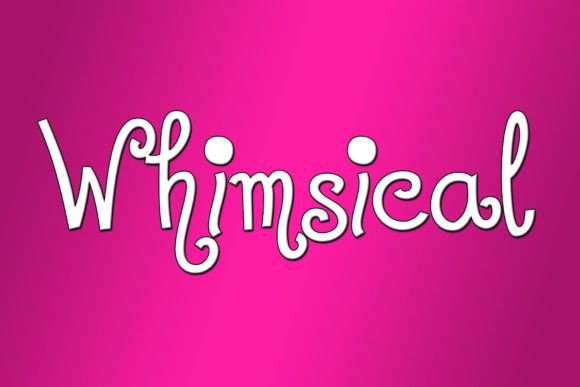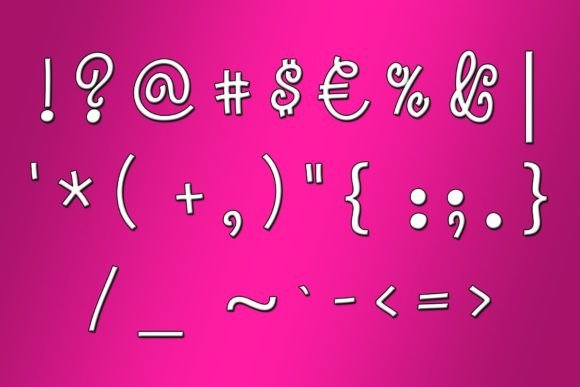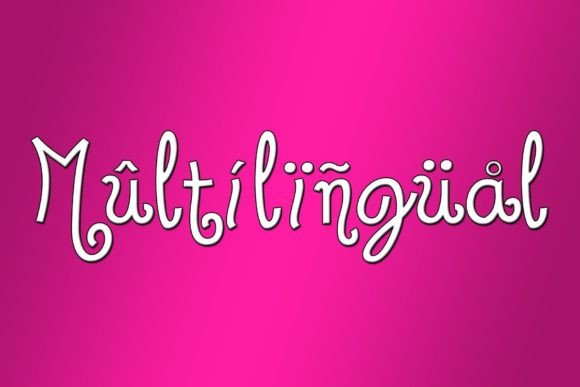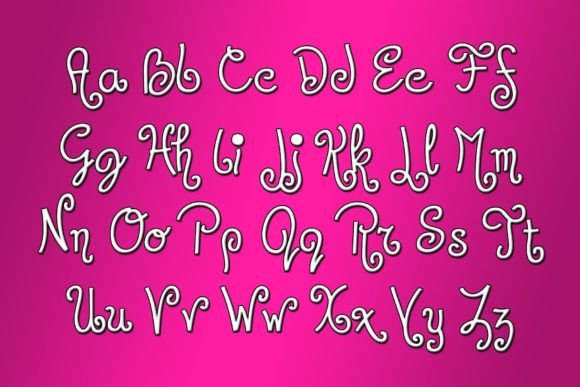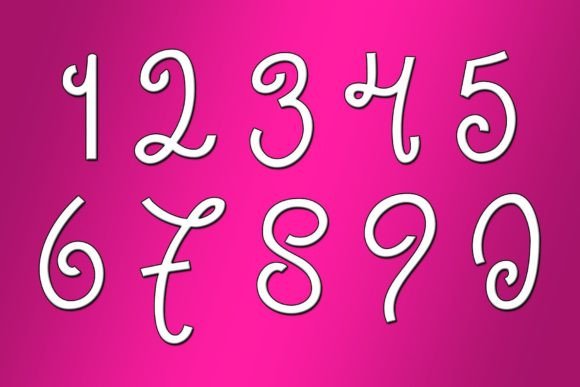
Whimsical Font
About Whimsical Font
Introducing a truly unique handwritten font celebrated for its natural and beautifully flowing style, making it an ideal choice for your design projects. Embrace the inherent charm and seamless flow of this font as it effortlessly enhances your creative endeavors.
The natural and beautifully flowing style of this handwritten font adds an authentic touch to your designs. Whether you’re crafting logos, developing branding, creating invitations, or working on any creative project, the unique qualities of this font bring a sense of organic beauty and creativity to your text.
Consider this font a distinctive asset in your design toolkit, offering you the ability to infuse your projects with a touch of individuality and elegance. Its versatility ensures it seamlessly integrates into various design contexts, providing you with the freedom to express your artistic vision.
Make this unique handwritten font an essential element in your creative toolkit, letting its natural and beautifully flowing style become the signature touch that sets your projects apart. Embrace the beauty of individuality and let this font elevate your designs to new levels of visual appeal.